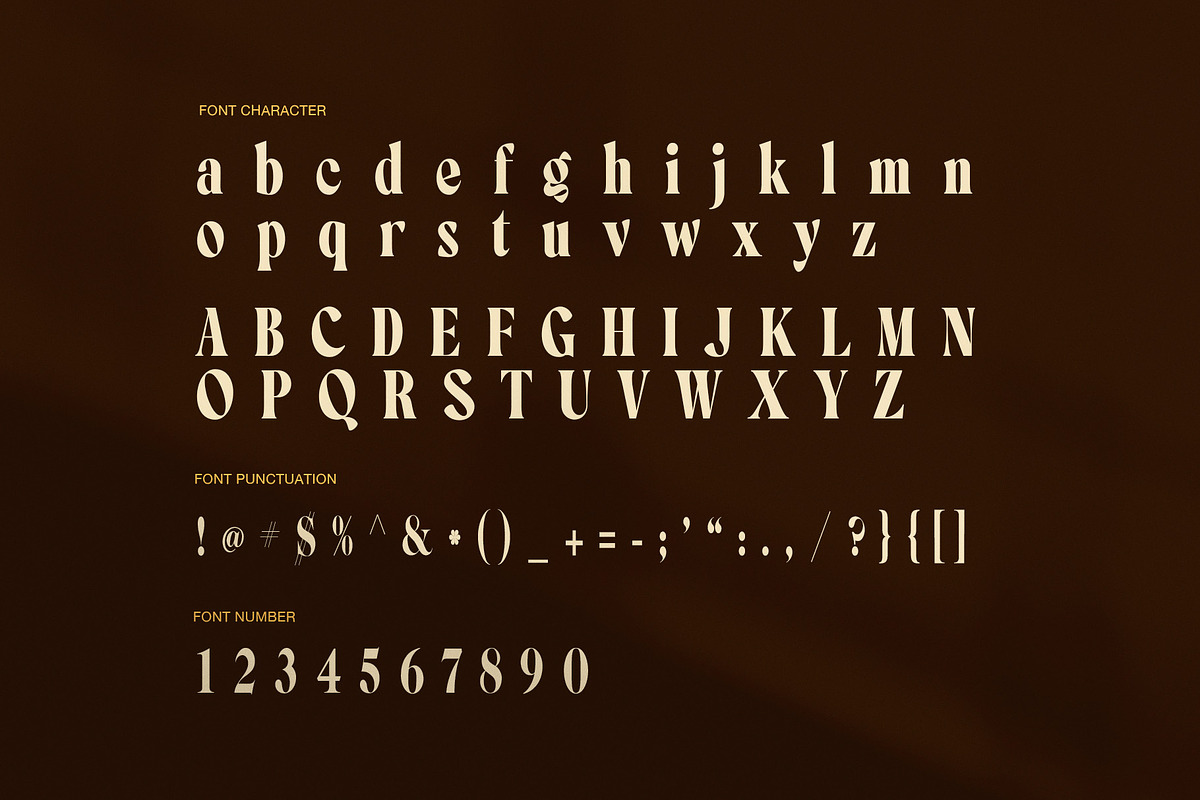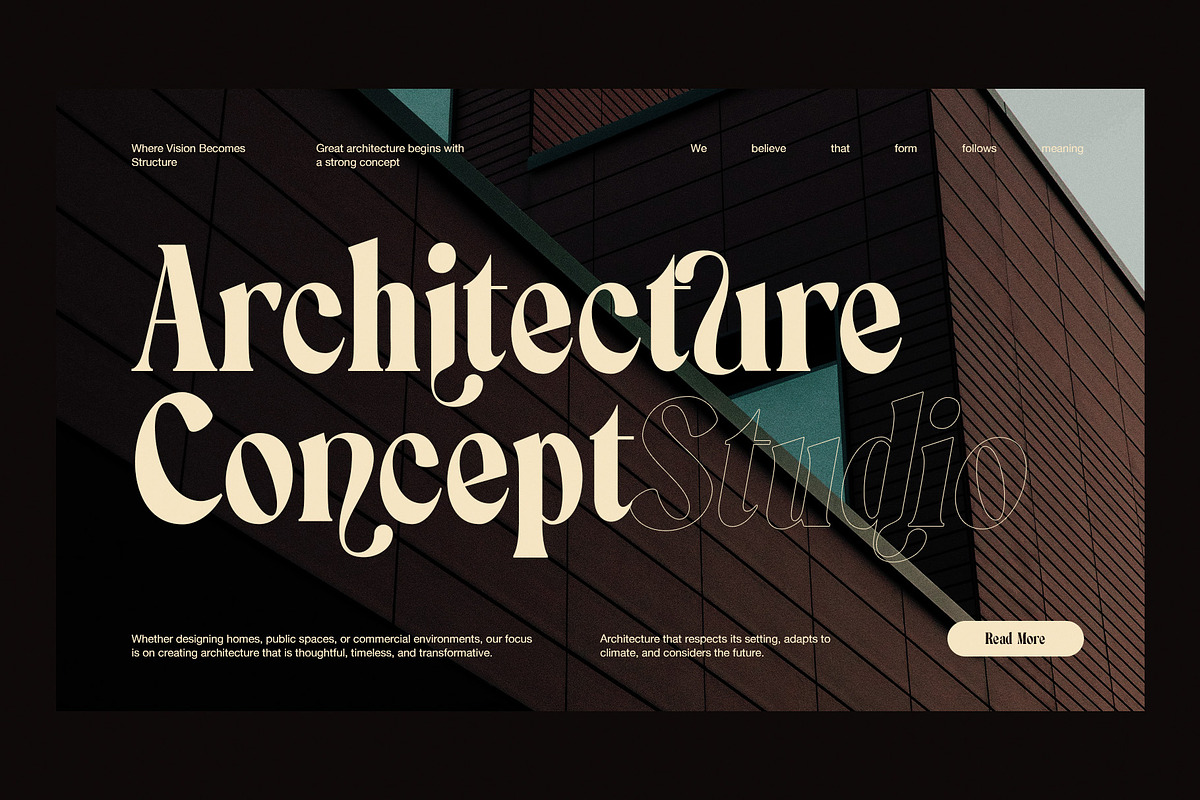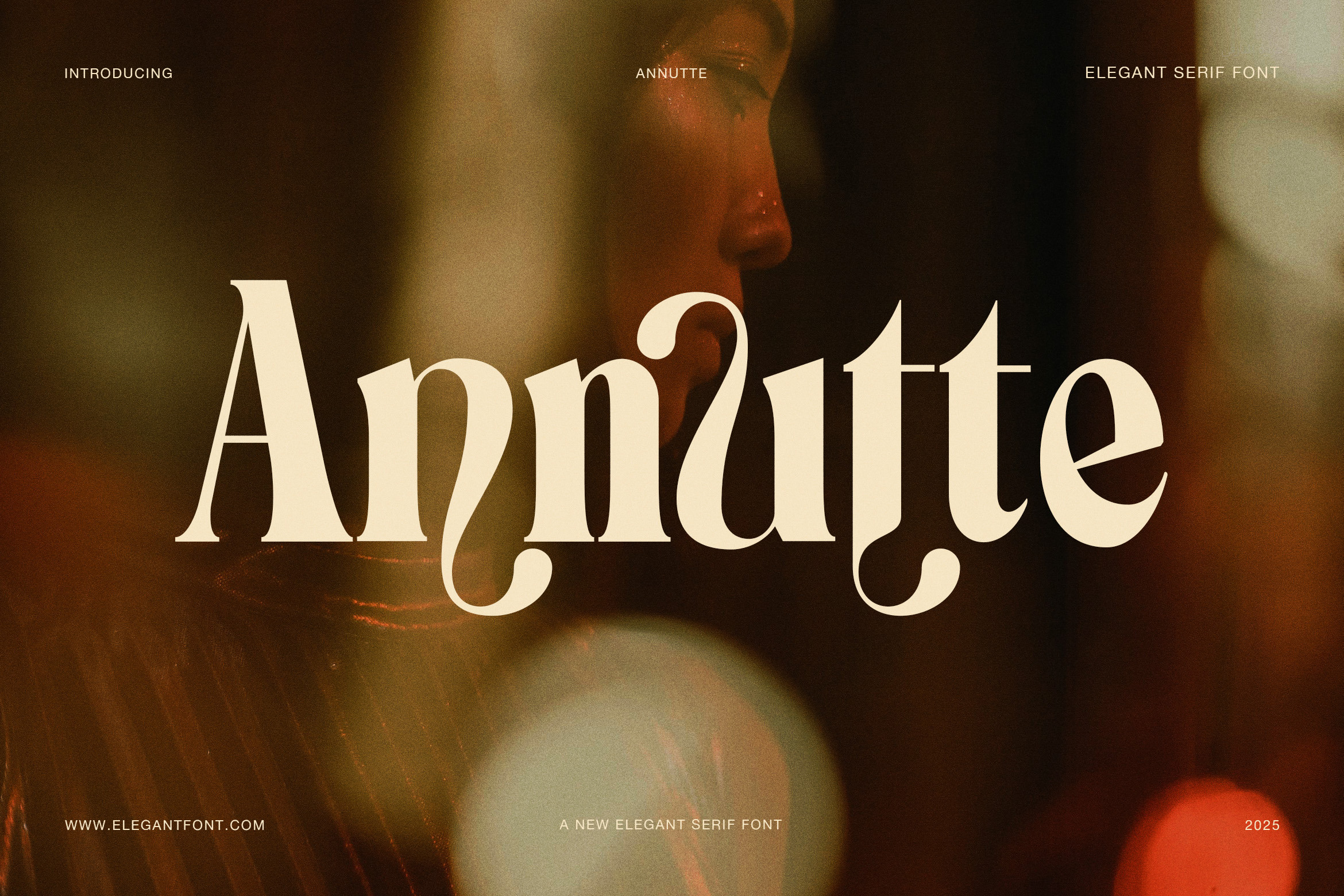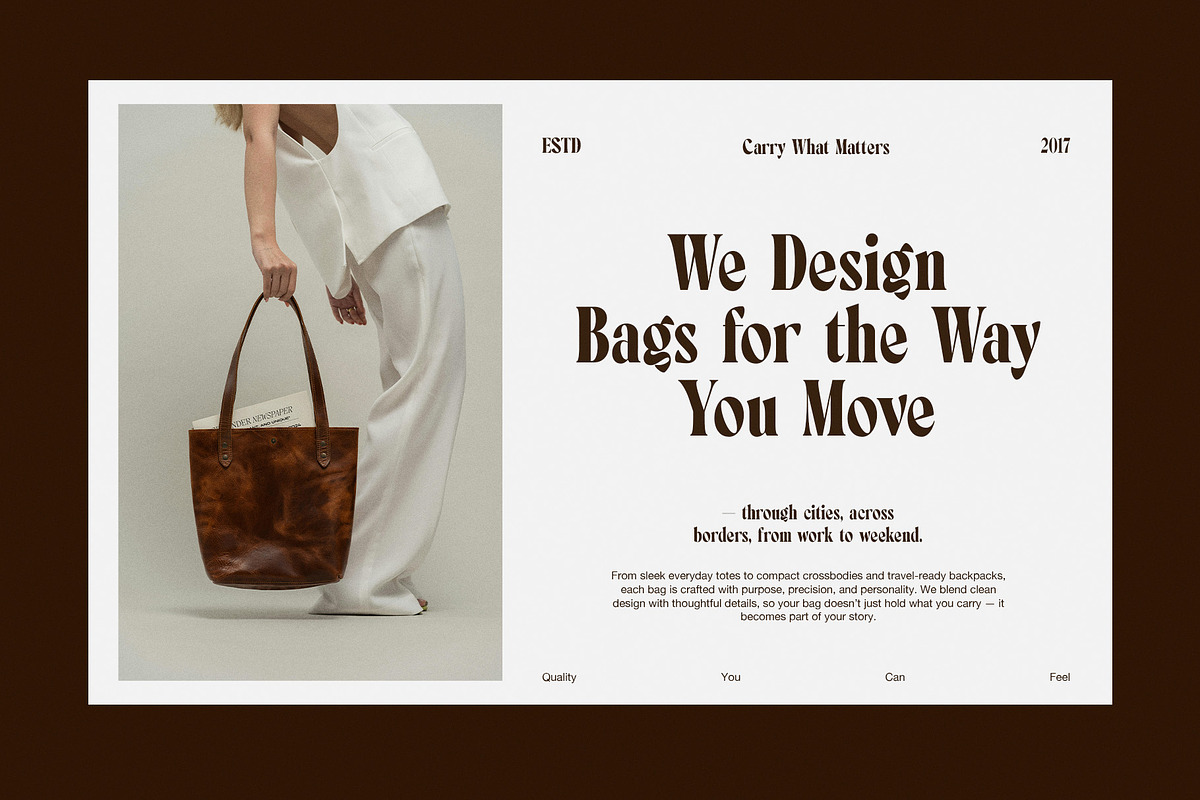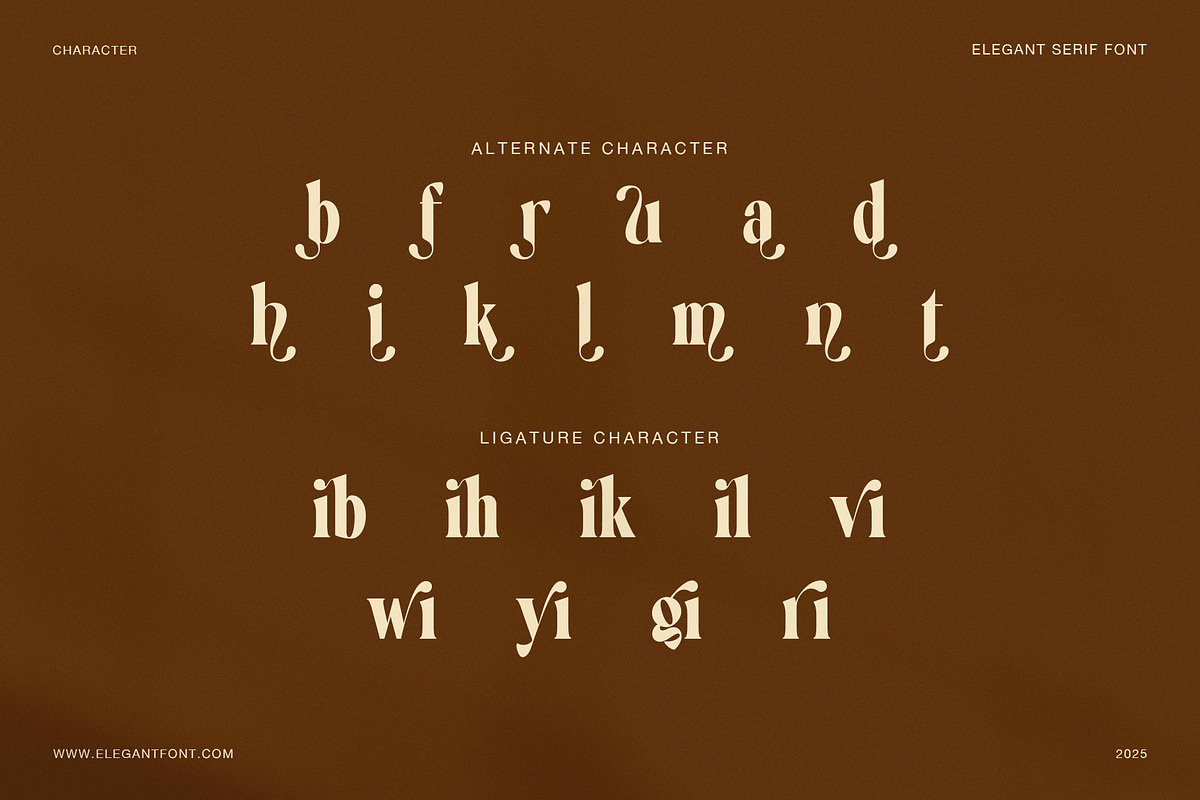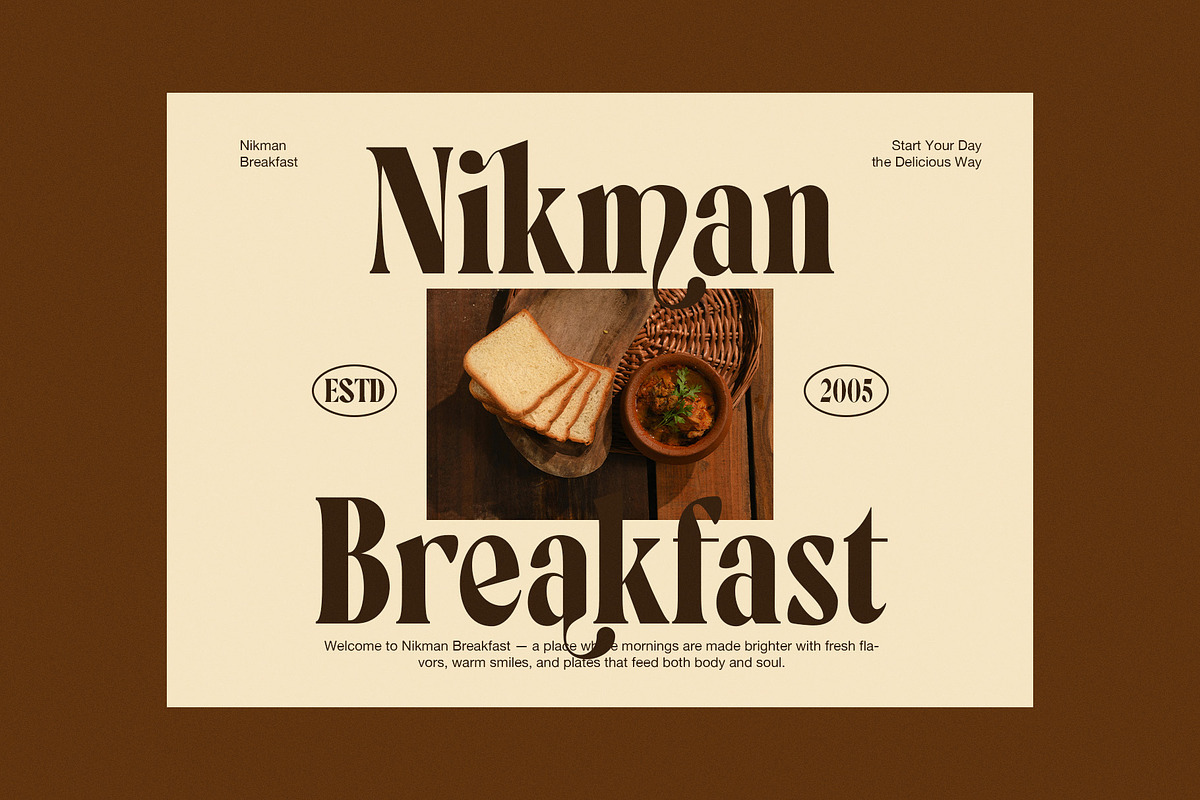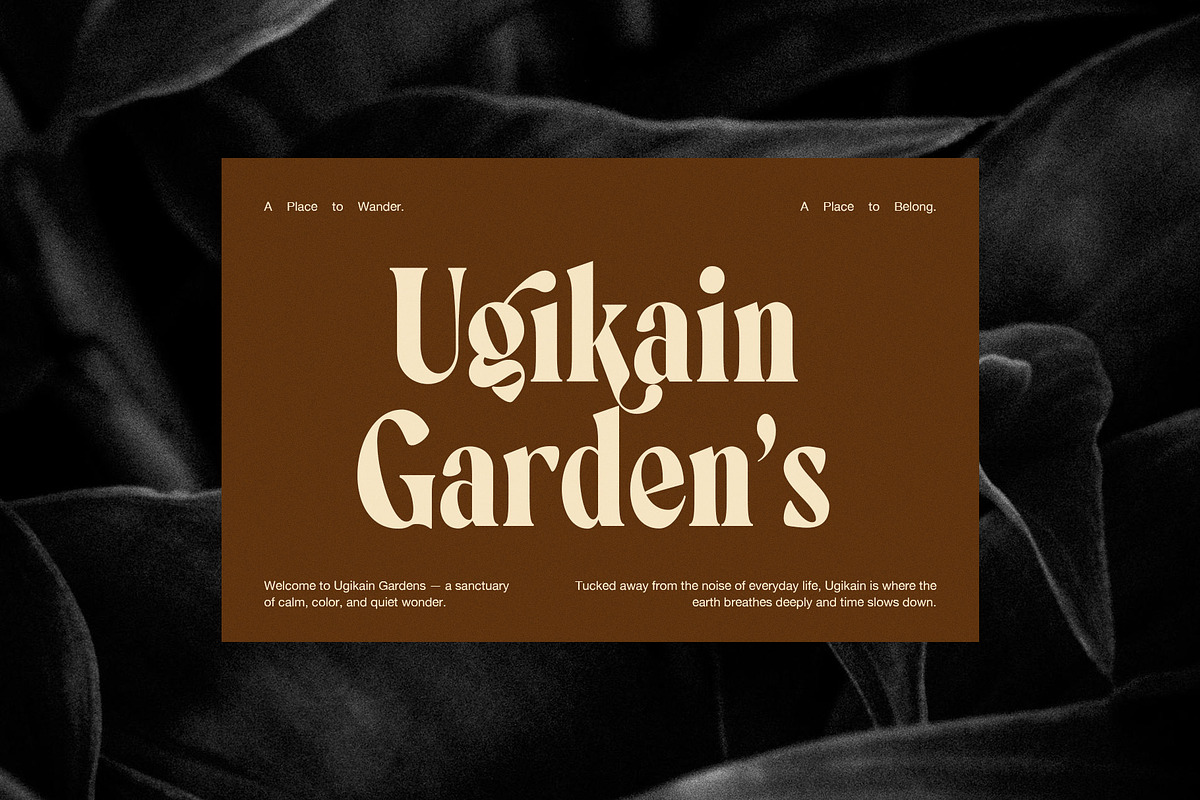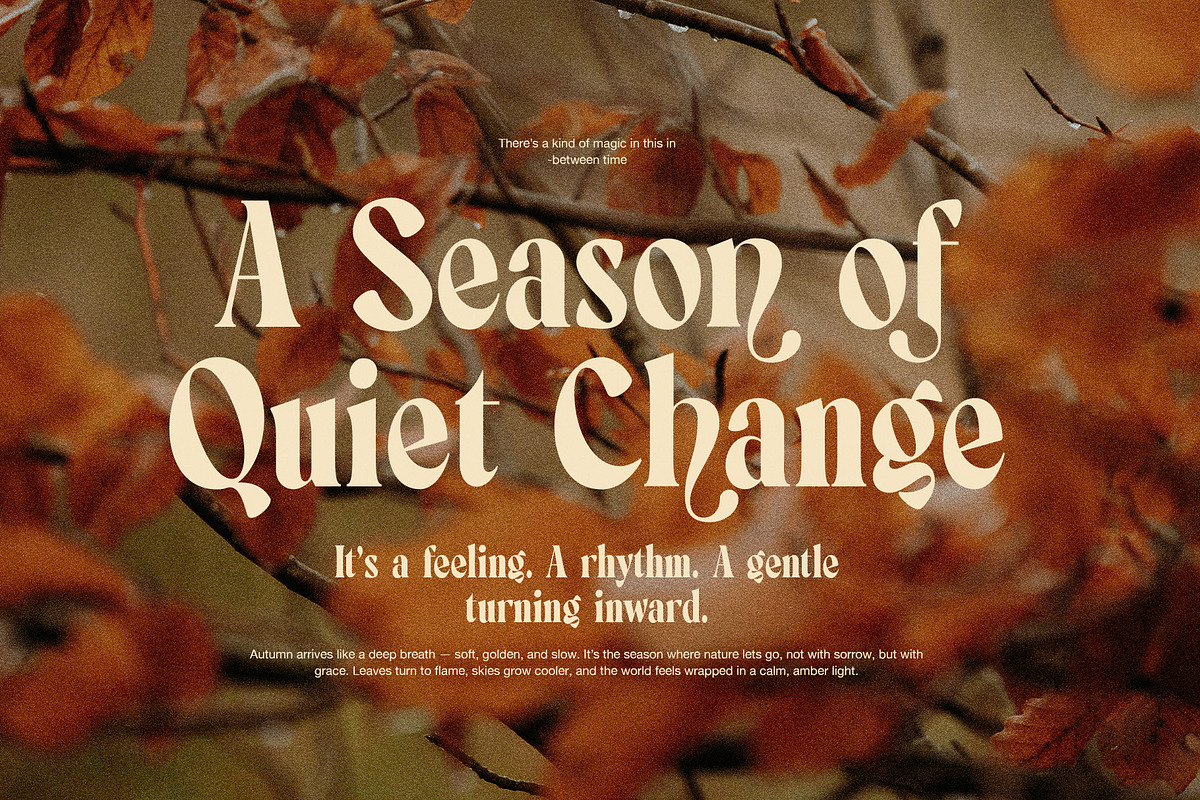
Annutte Elegant Serif Display Font
Annutte is an elegant serif display font designed to capture emotion, atmosphere, and timeless refinement. Inspired by quiet moments and thoughtful design, this font blends classic serif structure with soft curves and expressive details. As a result, Annutte feels poetic, warm, and deeply intentional.
From the first letter, Annutte reveals graceful contrast and fluid strokes. Each character flows naturally, yet remains balanced and readable. Because of this harmony, the font works beautifully in both bold headlines and carefully composed short text. Moreover, its subtle curves create a calm rhythm that guides the reader’s eye with ease.
Annutte includes alternate characters and refined ligatures that allow designers to shape unique typographic voices. These features add elegance without distraction. Therefore, every word can feel personal, crafted, and visually rich. In addition, the font maintains clarity across digital and print applications, even at larger display sizes.
This serif font is ideal for projects that rely on mood and storytelling. It shines in editorial layouts, lifestyle branding, boutique packaging, and creative websites. Whether used for a fashion brand, architecture studio, or hospitality concept, Annutte delivers a quiet luxury that feels authentic and timeless.
Furthermore, Annutte pairs beautifully with warm color palettes, natural textures, and cinematic photography. However, it also performs well in minimal layouts where typography takes center stage. Because of its versatility, designers can confidently use Annutte for logos, posters, lookbooks, and premium marketing materials.
Elegant serif display style with soft contrast
Expressive alternates for artistic typography
Refined ligatures for smooth word flow
Calm rhythm with timeless character shapes
Clean structure for professional layouts
Editorial and magazine design
Fashion and lifestyle branding
Architecture and creative studios
Boutique packaging and labels
Website headers and hero sections
In conclusion, Annutte is more than a serif font. It is a visual language for calm, meaning, and refined expression. Through thoughtful details and balanced form, Annutte elevates every design it touches.